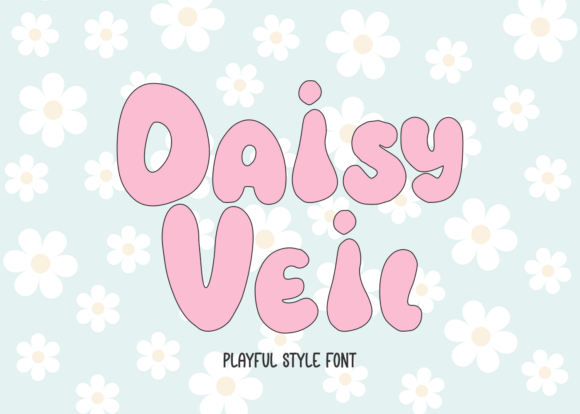
Daisy Veil Font: Elevate Your Designs with a Touch of Romance and Whimsy
In the world of typography, fonts play a crucial role in conveying the tone and personality of a design. Whether you’re working on a greeting card, headline, or any other creative project, the right font can make all the difference. If you’re looking for a stylish and playful display font that can add a romantic and exquisite feel to your designs, look no further than Daisy Veil Font.
What is Daisy Veil Font?
Daisy Veil Font is a beautiful, hand-crafted typeface that is perfect for a wide spectrum of applications. Its stylish and playful design makes it an excellent choice for greeting cards, headlines, posters, and many more. This font is designed to add a touch of romance and whimsy to your designs, making it ideal for projects that require a feminine and elegant touch.
Key Features of Daisy Veil Font
- Stylish and Playful Design: Daisy Veil Font boasts a unique and captivating design that is sure to grab attention. Its stylish and playful aesthetic makes it perfect for designs that require a touch of personality.
- Romantic and Exquisite Feel: This font is designed to add a romantic and exquisite feel to your designs. Its elegant and refined appearance makes it perfect for projects that require a sophisticated and luxurious look.
- Versatile and Flexible: Daisy Veil Font is a versatile font that can be used in a wide range of applications. Whether you’re working on a greeting card, headline, or poster, this font can be easily adapted to suit your design needs.
- Easy to Read and Understand: Despite its stylish and playful design, Daisy Veil Font is easy to read and understand. This makes it perfect for designs that require a clear and concise message.
Uses of Daisy Veil Font
Daisy Veil Font is a versatile typeface that can be used in a wide range of applications. Some of the most popular uses of this font include:
- Greeting Cards: Whether you’re designing a birthday card, wedding invitation, or anniversary card, Daisy Veil Font is the perfect choice.
- Headlines and Titles: This font is ideal for headlines and titles that require a touch of personality and whimsy.
- Posters and Flyers: Daisy Veil Font can be used to create eye-catching posters and flyers that grab attention.
- Branding and Packaging: This font can be used to create beautiful and elegant branding and packaging designs.
Benefits of Using Daisy Veil Font
There are many benefits to using Daisy Veil Font in your designs. Some of the most significant advantages include:
- Unique and Eye-Catching Design: Daisy Veil Font boasts a unique and eye-catching design that is sure to grab attention.
- Romantic and Exquisite Feel: This font adds a romantic and exquisite feel to your designs, making it perfect for projects that require a sophisticated and luxurious look.
- Versatile and Flexible: Daisy Veil Font is a versatile font that can be used in a wide range of applications.
- Easy to Read and Understand: This font is easy to read and understand, making it perfect for designs that require a clear and concise message.
How to Use Daisy Veil Font
Using Daisy Veil Font in your designs is easy. Here are a few tips to get you started:
- Choose the Right Size: Choose a size that is clear and easy to read.
- Experiment with Colors: Experiment with different colors to find the perfect combination for your design.
- Pair with Other Fonts: Pair Daisy Veil Font with other fonts to create a unique and eye-catching design.
In conclusion, Daisy Veil Font is a beautiful and versatile typeface that is perfect for a wide spectrum of applications. Its stylish and playful design, romantic and exquisite feel, and versatility make it an excellent choice for designers who want to add a touch of personality and whimsy to their designs. Whether you’re working on a greeting card, headline, or poster, Daisy Veil Font is sure to elevate your designs and make them stand out.
- What is Daisy Veil Font? Daisy Veil Font is a stylish and playful display font perfect for a wide spectrum of applications.
- What are the key features of Daisy Veil Font? The key features of Daisy Veil Font include its stylish and playful design, romantic and exquisite feel, versatility, and ease of use.
- What are the uses of Daisy Veil Font? Daisy Veil Font can be used in a wide range of applications, including greeting cards, headlines, posters, and branding and packaging designs.